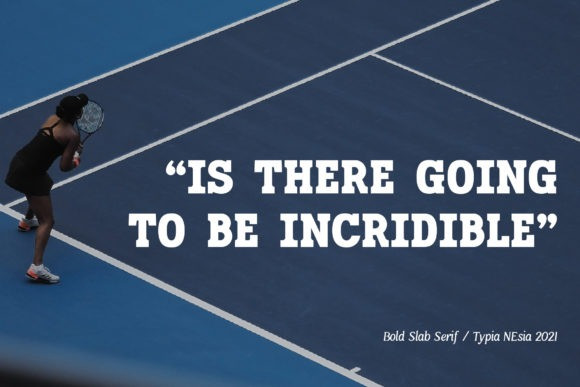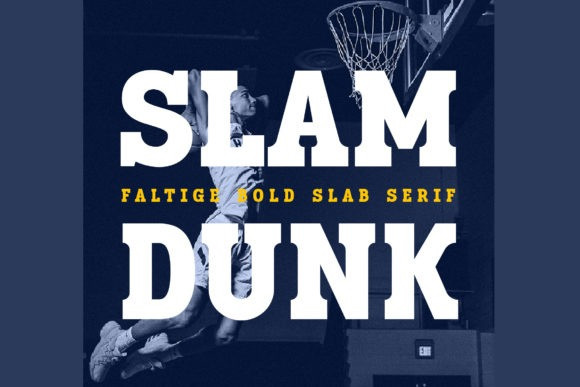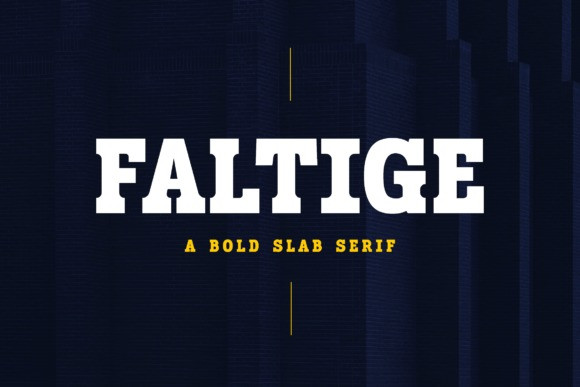
Faltige Slab Serif Font
This is a groovy slab serif typeface inspired by a sports slab font, with a masculine and sporty feel. Such as logo branding, editorial design, fashion, adventure apparel, stationery design, sport design, blog design, modern advertising design, card invitation, badge, art quote, home decor, book/cover title, special events and any more.
Faltige